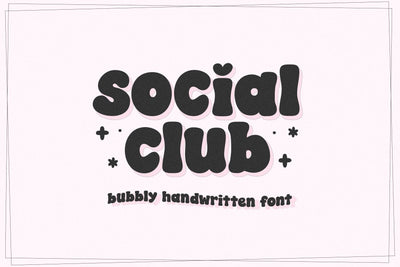
Social Club - Cute Bubbly Font
Social Club is a cute bubbly font!
This font is perfect for cricut projects, shirts, stickers, mugs, logos, social media quotes, branding, svg files and more!